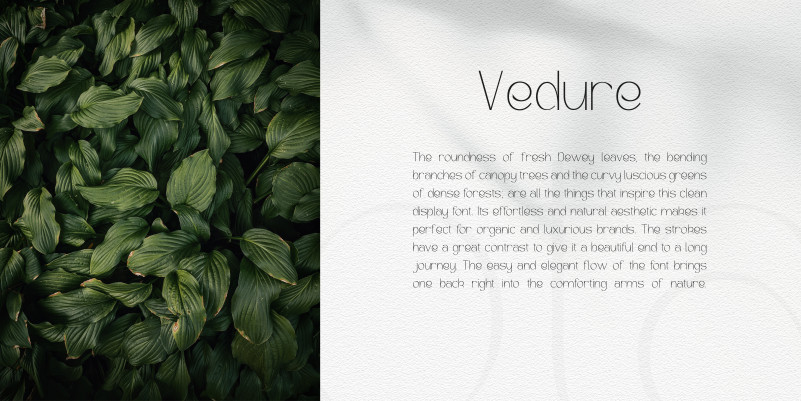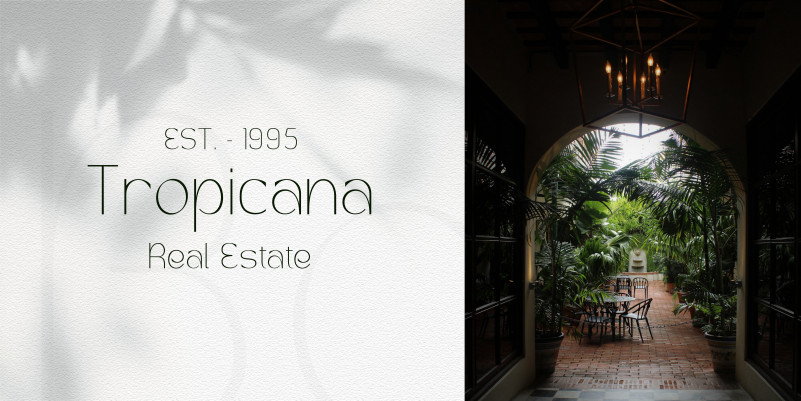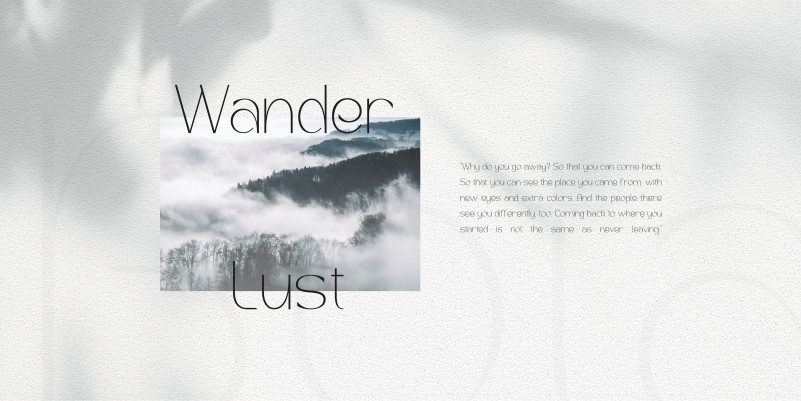
Verdure Display Font
The roundness of fresh Dewey leaves, the bending branches of canopy trees and the curvy luscious greens of dense forests; are all the things that inspire this clean display font. Its effortless and natural aesthetic makes it perfect for organic and luxurious brands. The strokes have a great contrast to give it a beautiful end to a long journey. The easy and elegant flow of the font brings one back right into the comforting arms of nature.